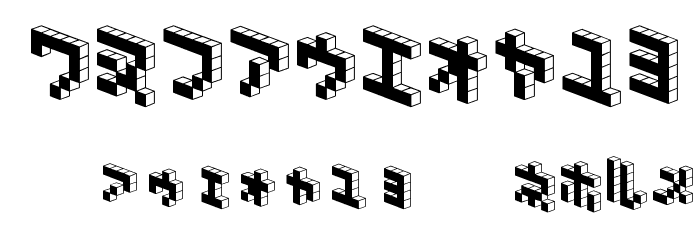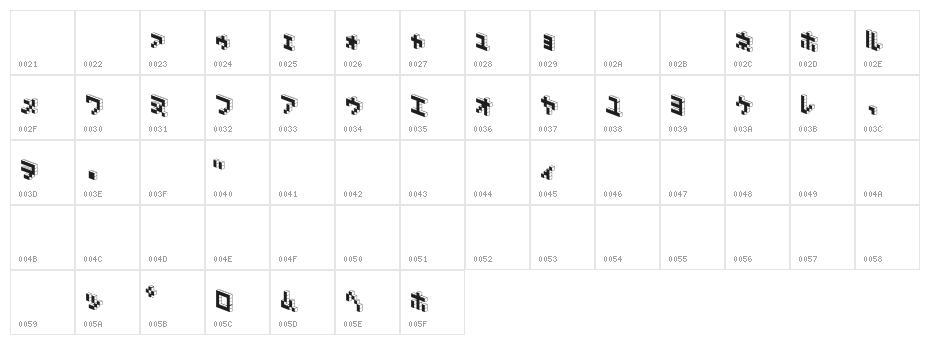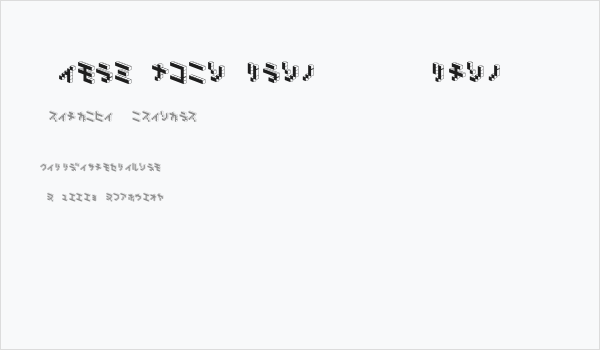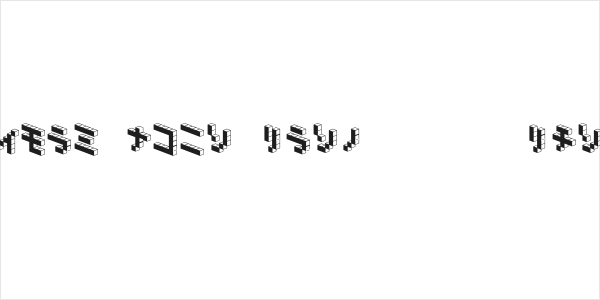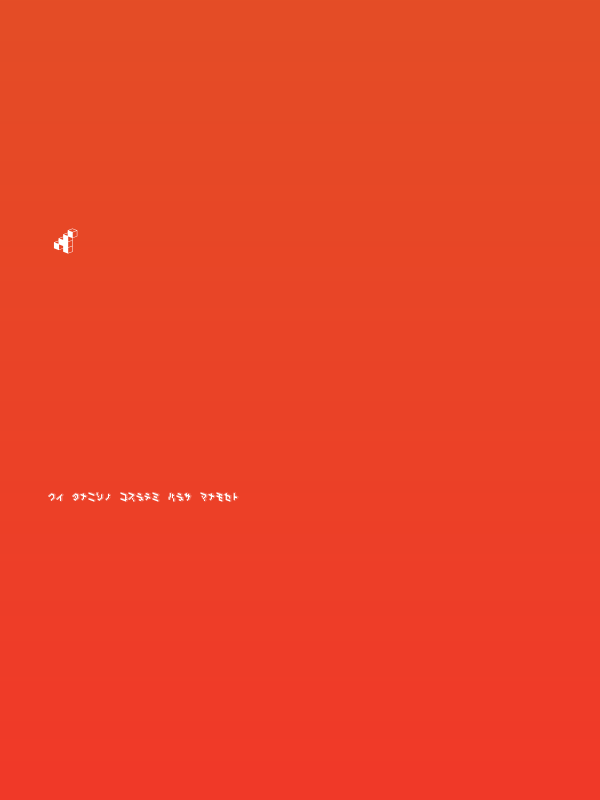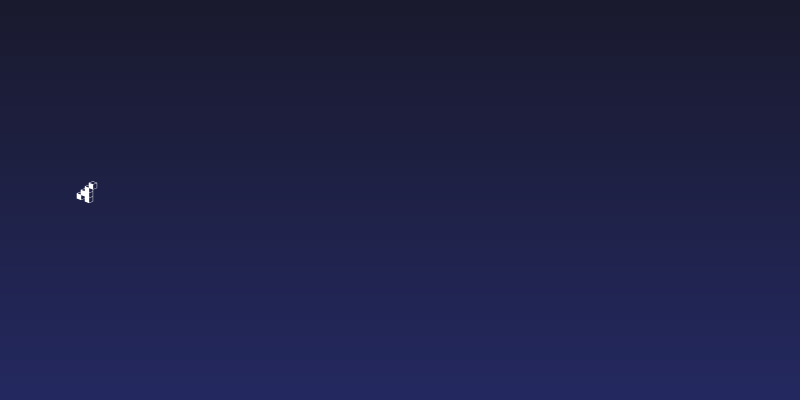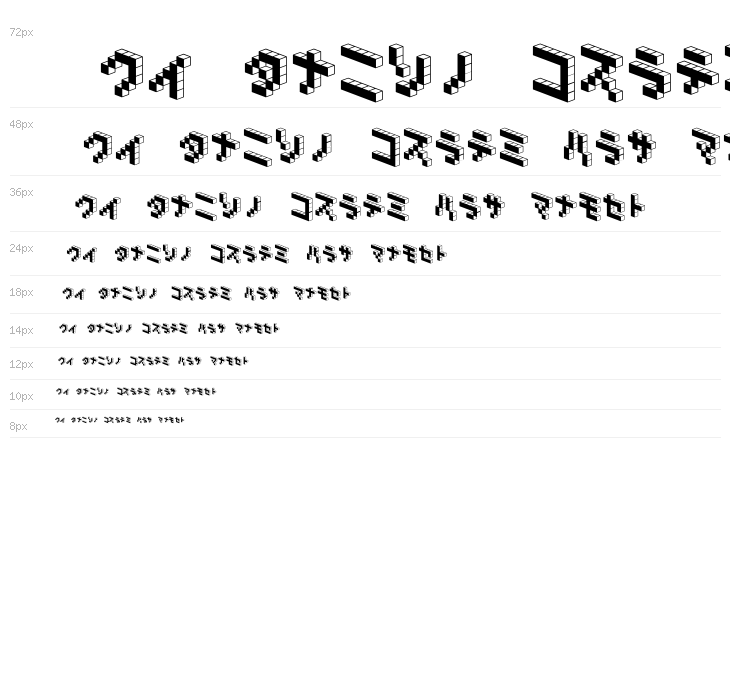
DemonCubicBlock NKP Black Font
DemonCubicBlock NKP Black Description
This font features a bold, three-dimensional block style that gives each character a cubic appearance. The letters are constructed with a geometric precision, creating a sense of depth and solidity. The design is reminiscent of isometric art, where each character appears to be built from stacked blocks. This unique style makes it stand out, offering a playful yet structured aesthetic. The font is highly decorative, making it suitable for creative and eye-catching designs. The characters are evenly spaced, ensuring readability despite their complex form. The boldness of the font adds to its visual impact, making it ideal for attention-grabbing headlines or titles.
| Proposed Projects | Ideal for video game graphics, poster designs, or any project requiring a bold, playful aesthetic. |